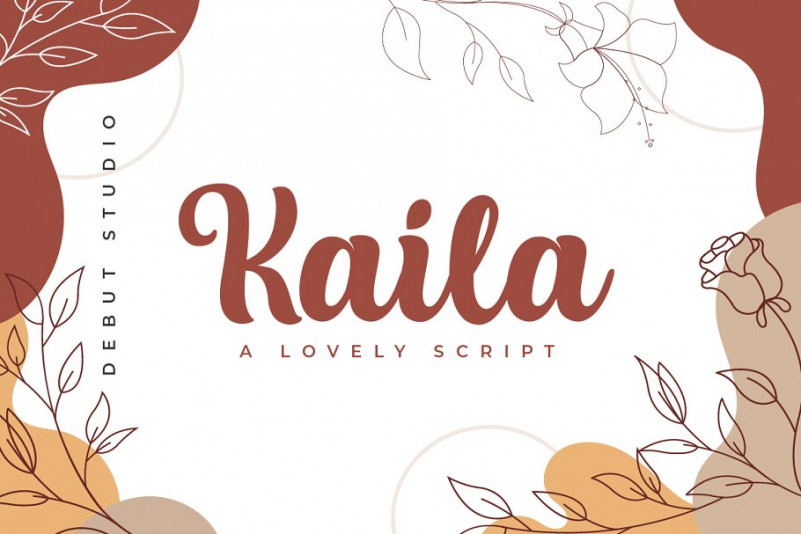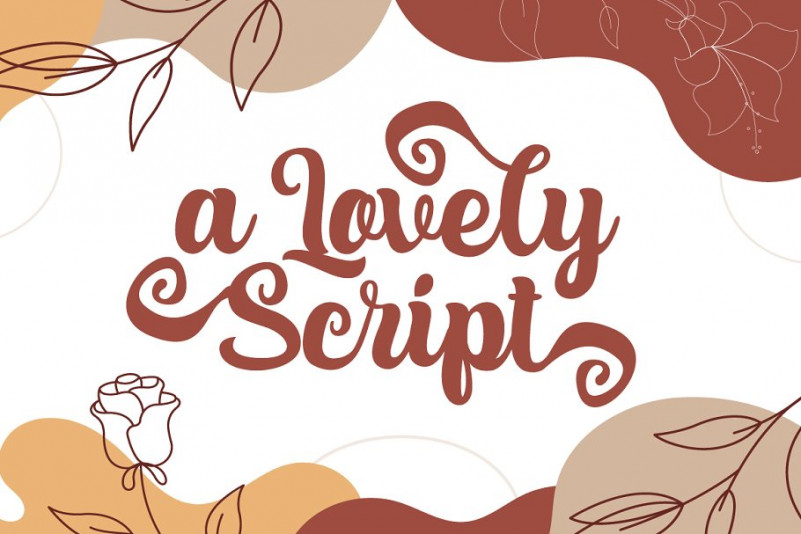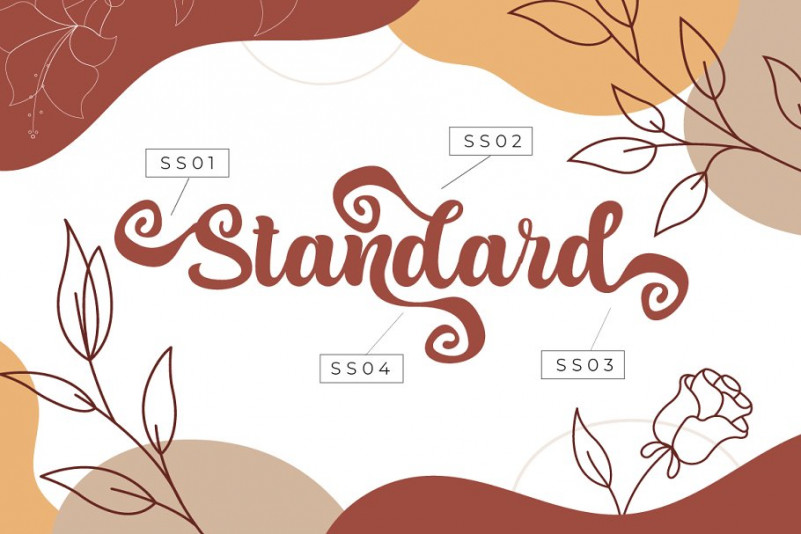
Kaila Font
Debut Studio presents the latest font Kaila Script This font is perfect for design purposes such as lovely design for wedding, crafting, posters, business cards, and others.